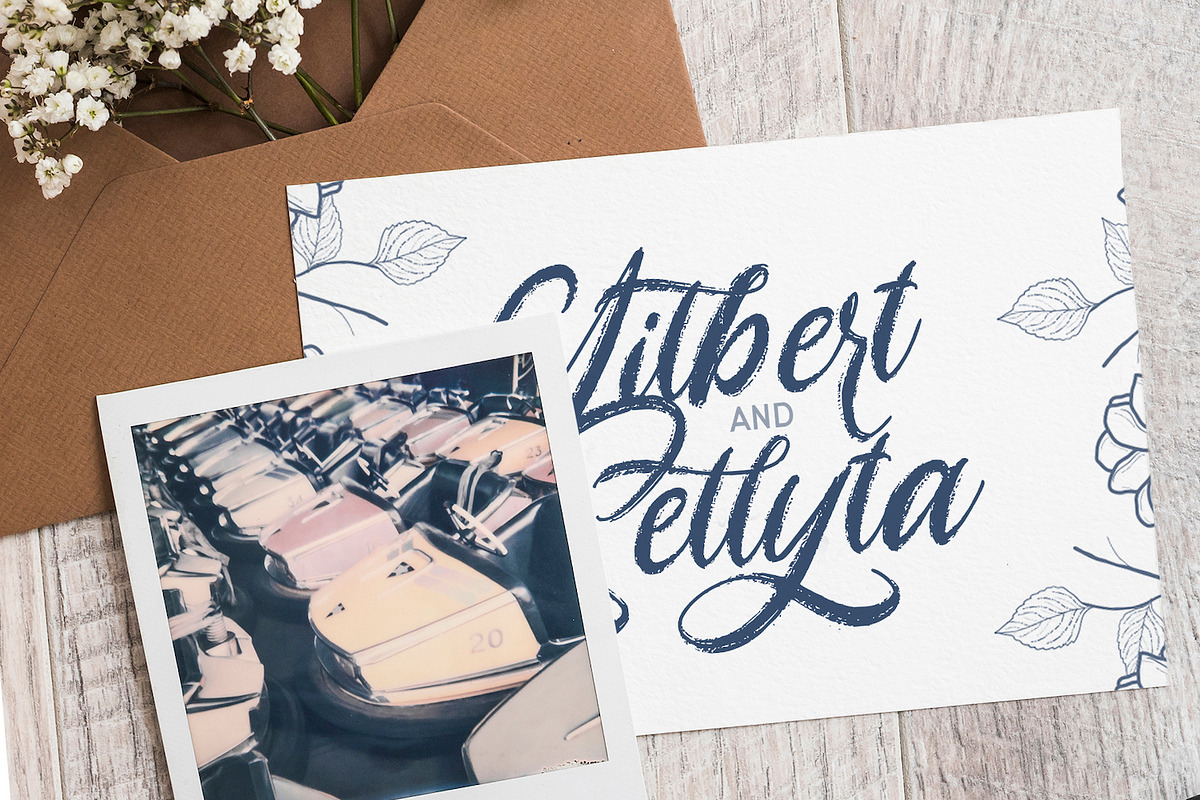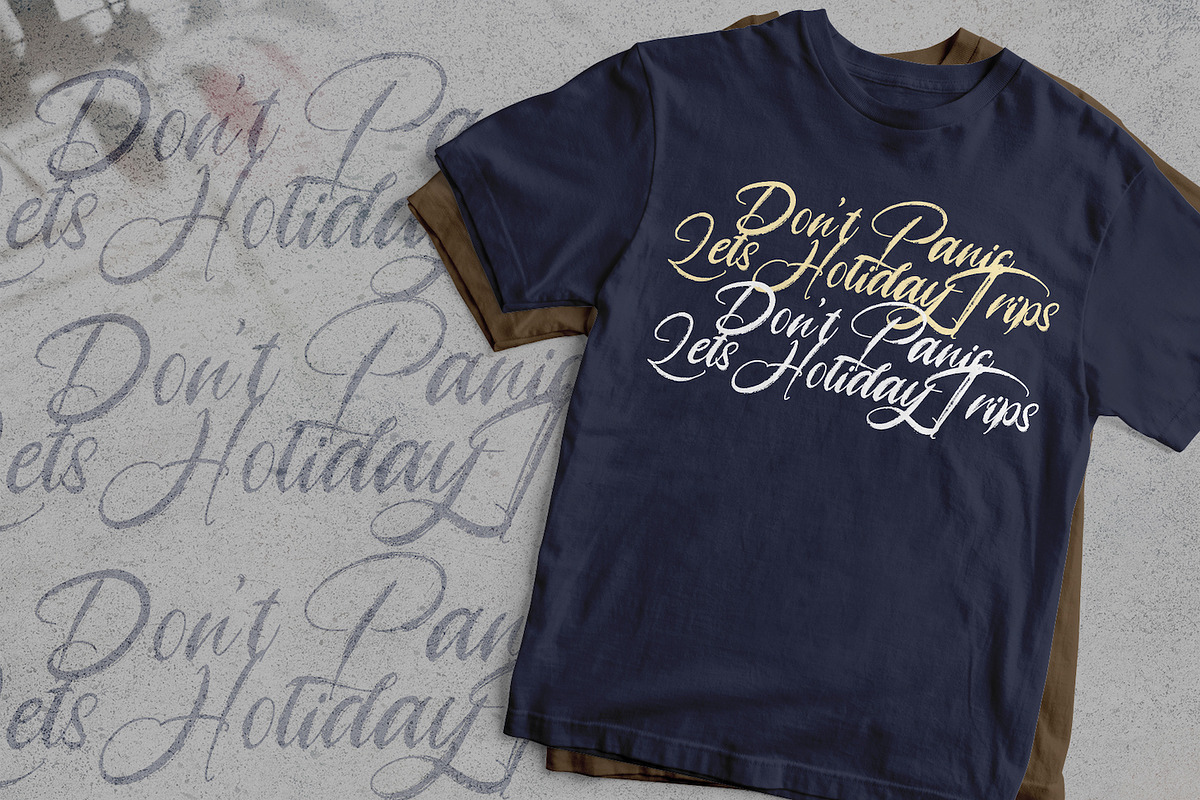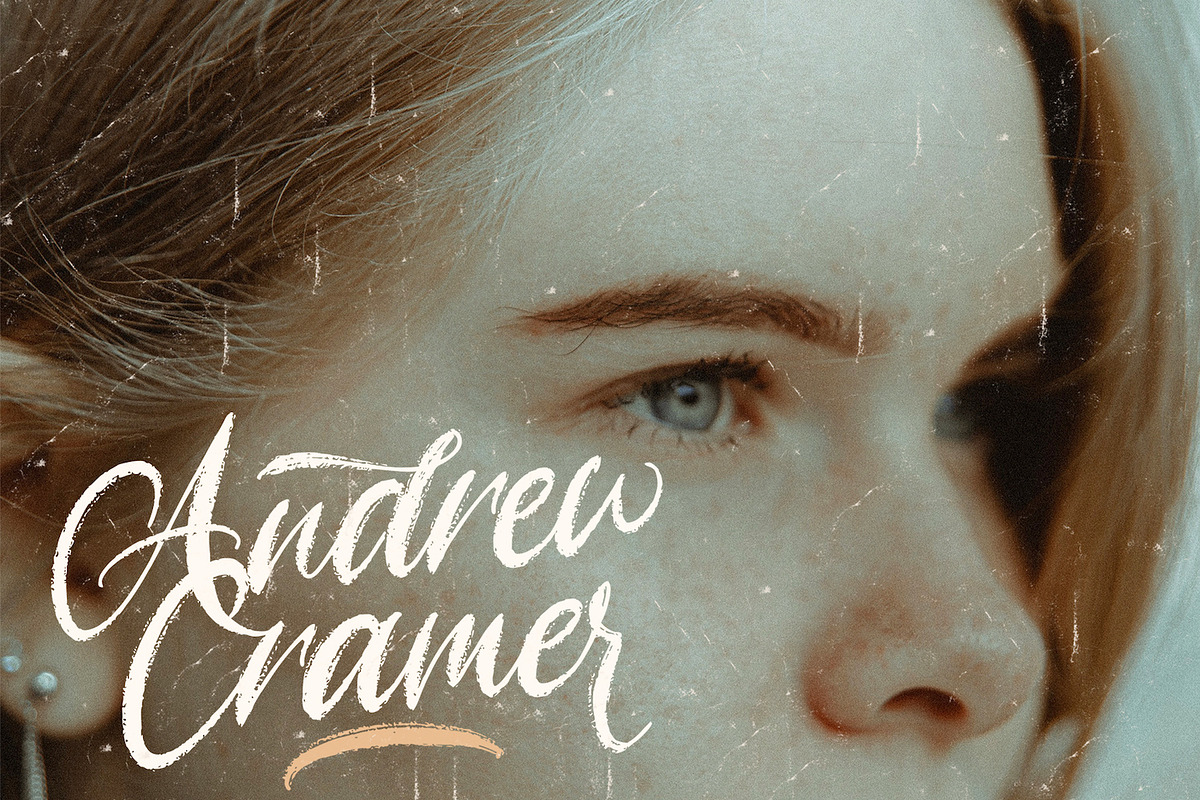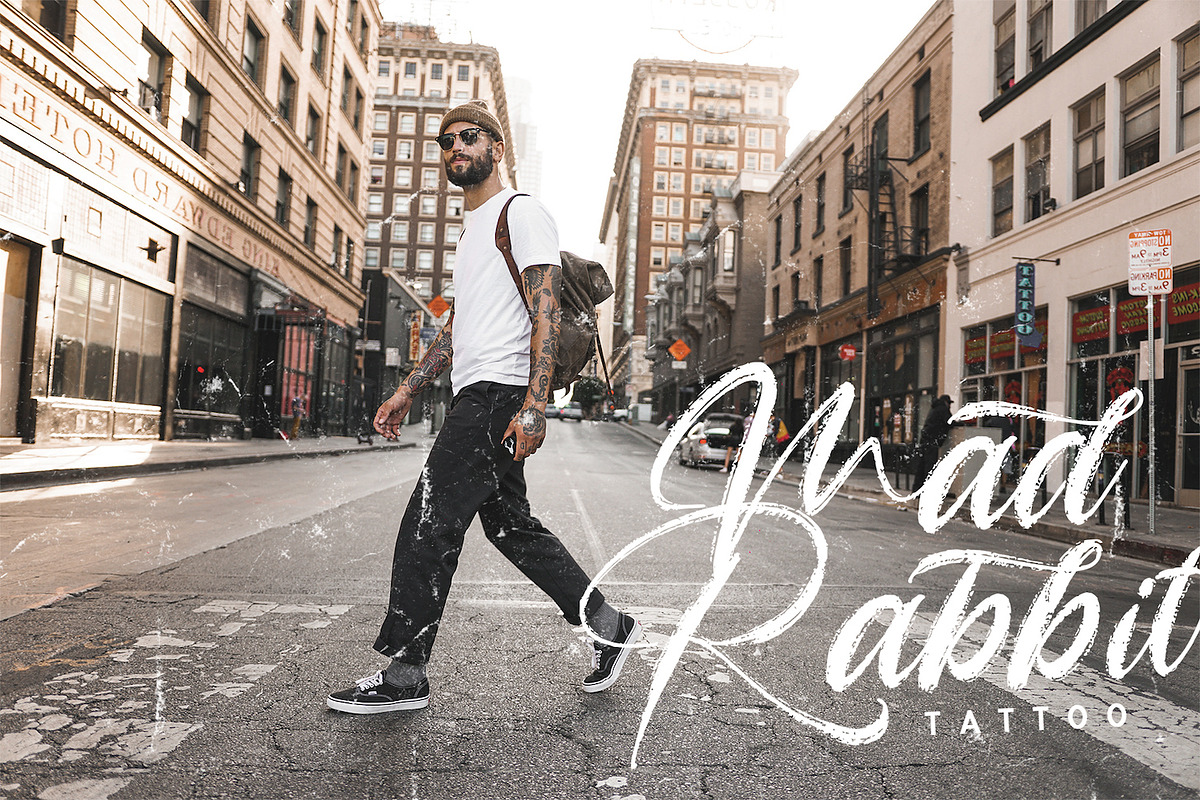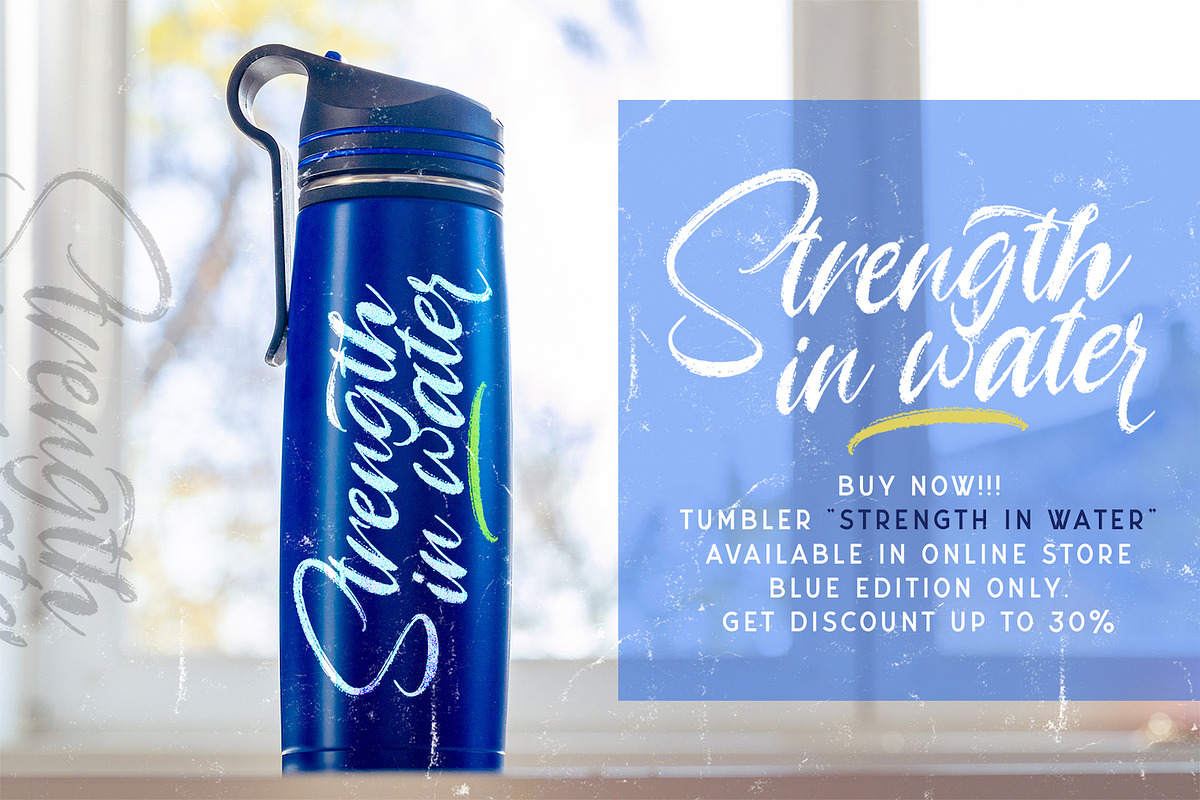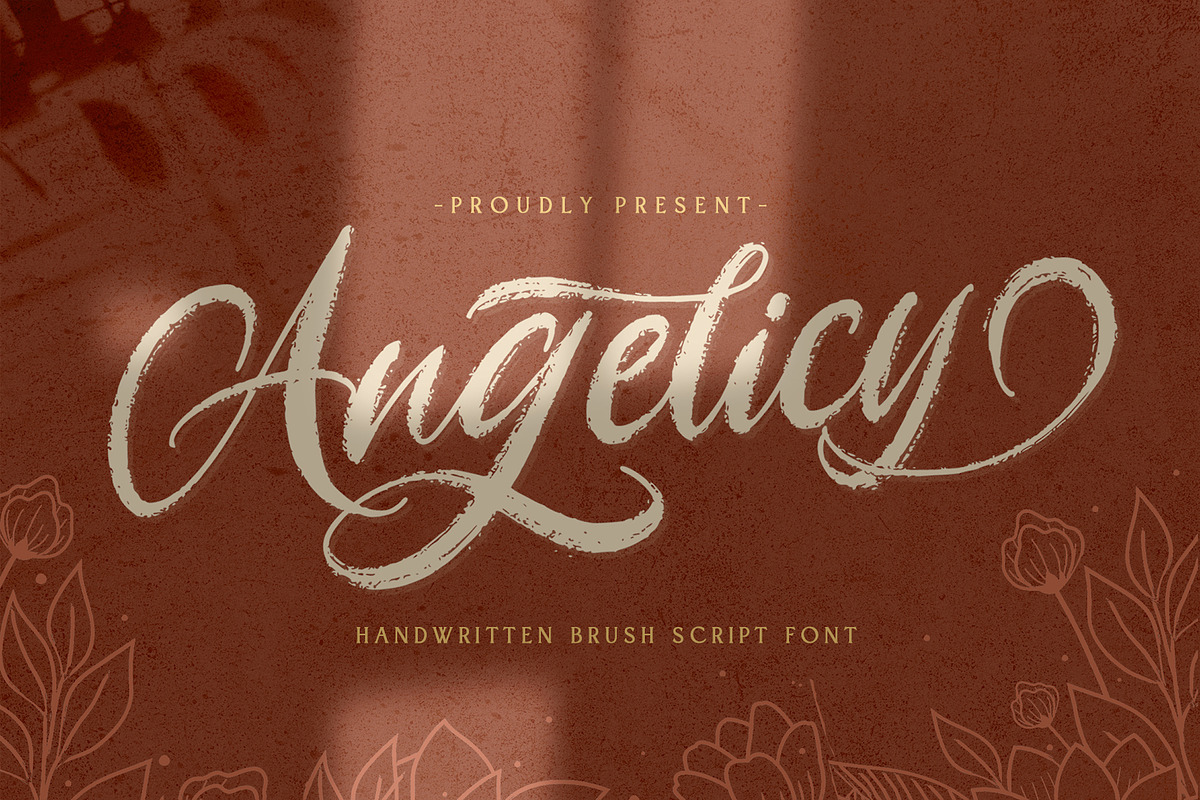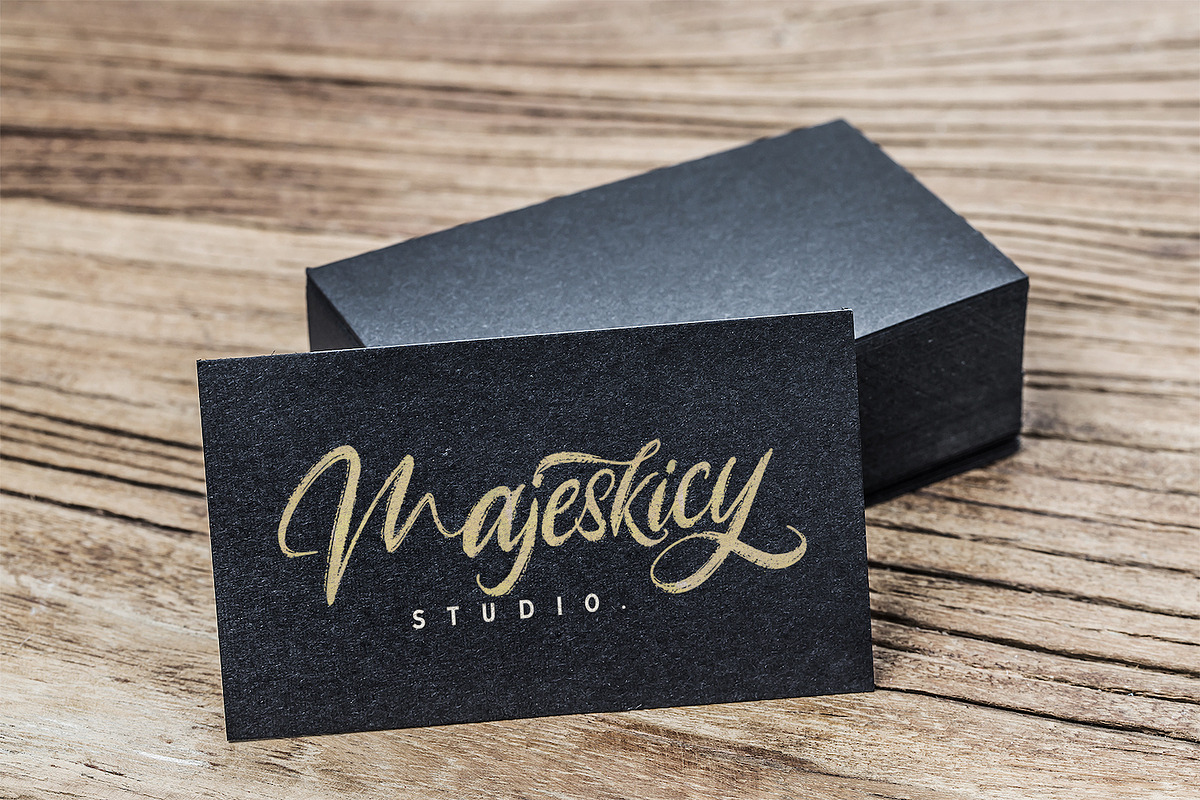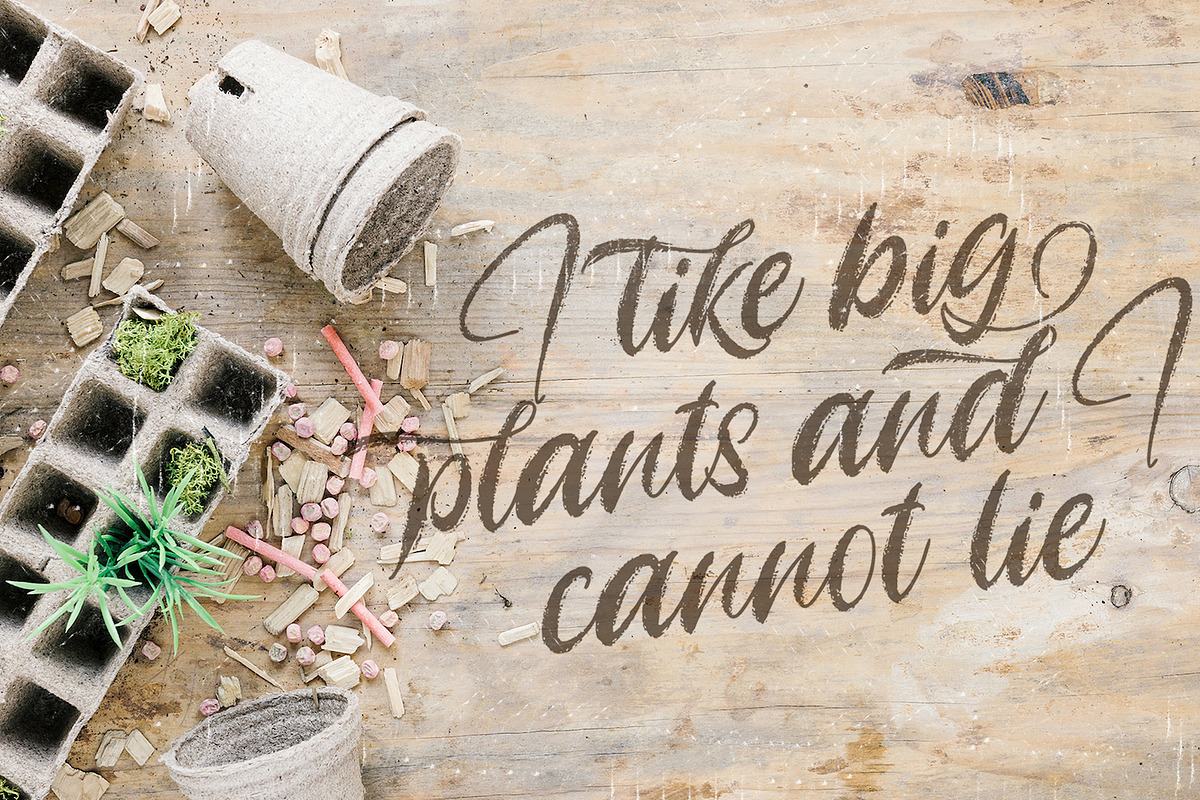
Angelicy - Textured Brush Font
Introducing Angelicy - Textured Brush Font
Angelicy is a script font with textured hand brush style. The Angelicy font made with digital hand brush pen strokes that making this font look authentic and unique concept. This font is perfect for fashion brand, wedding invitation, business card, logo brand, and then calligraphy project.